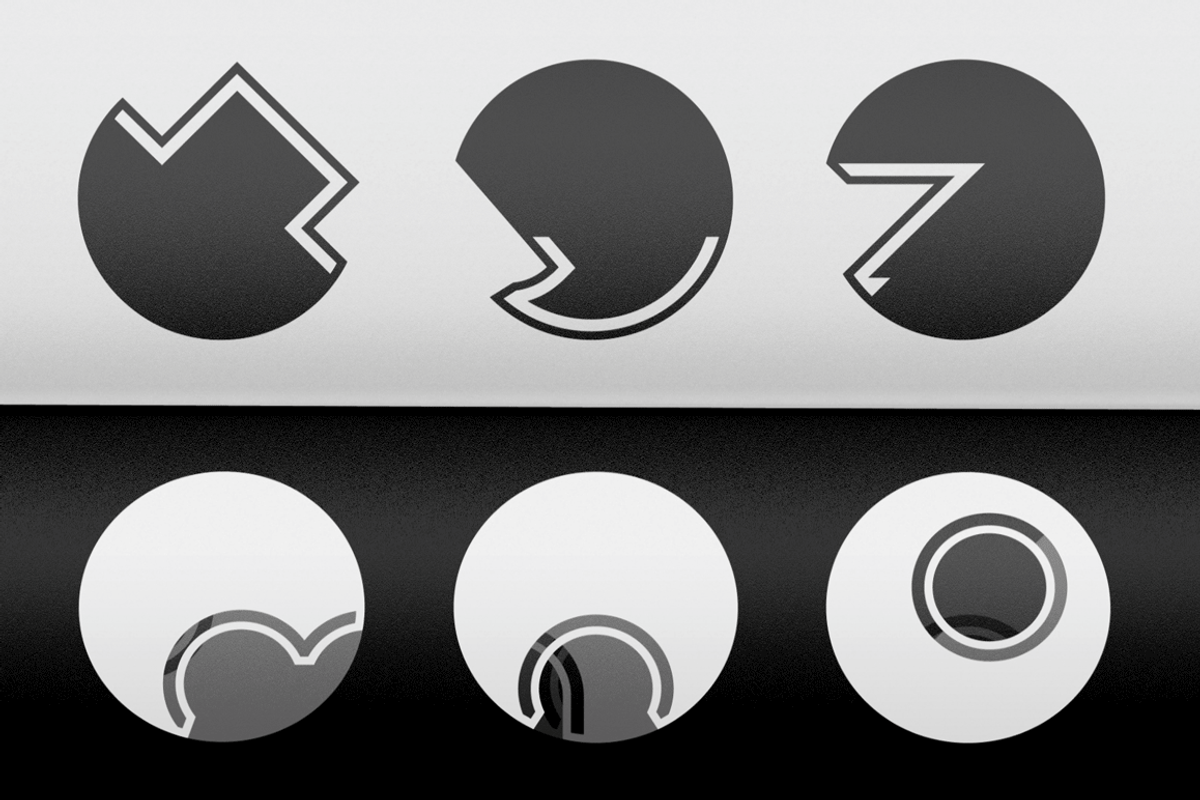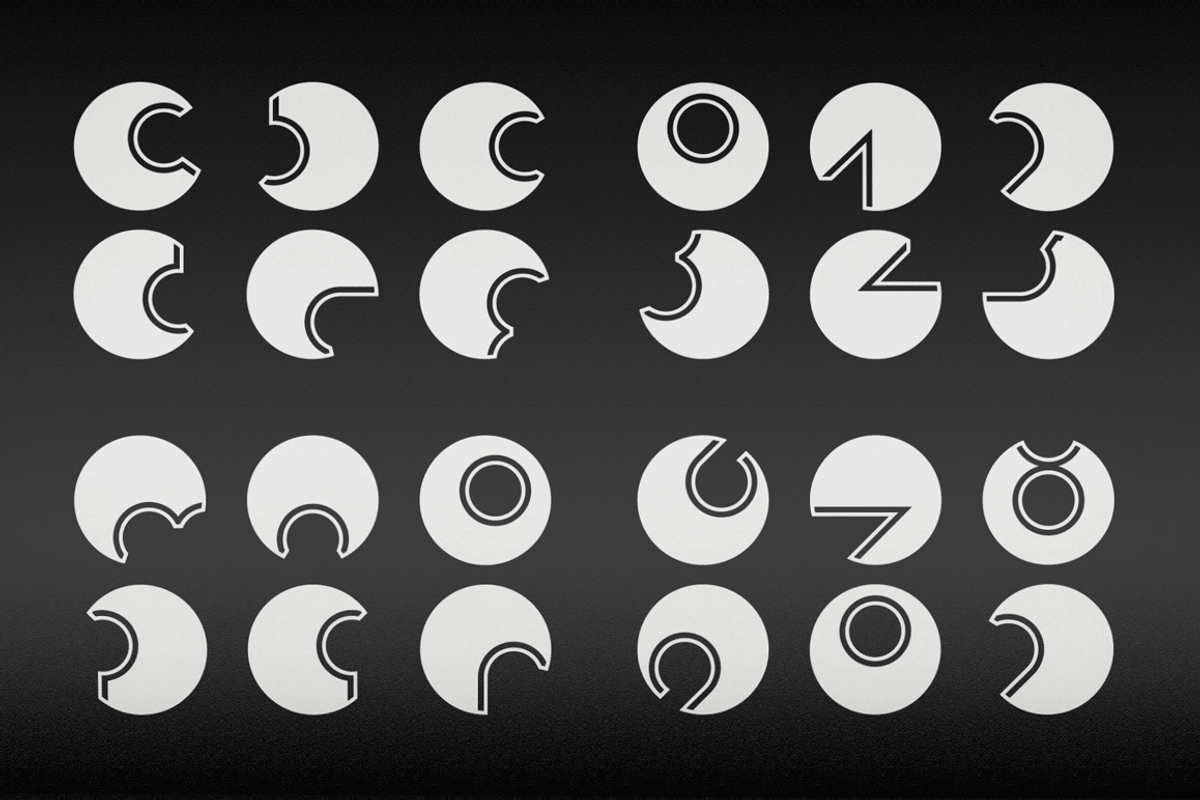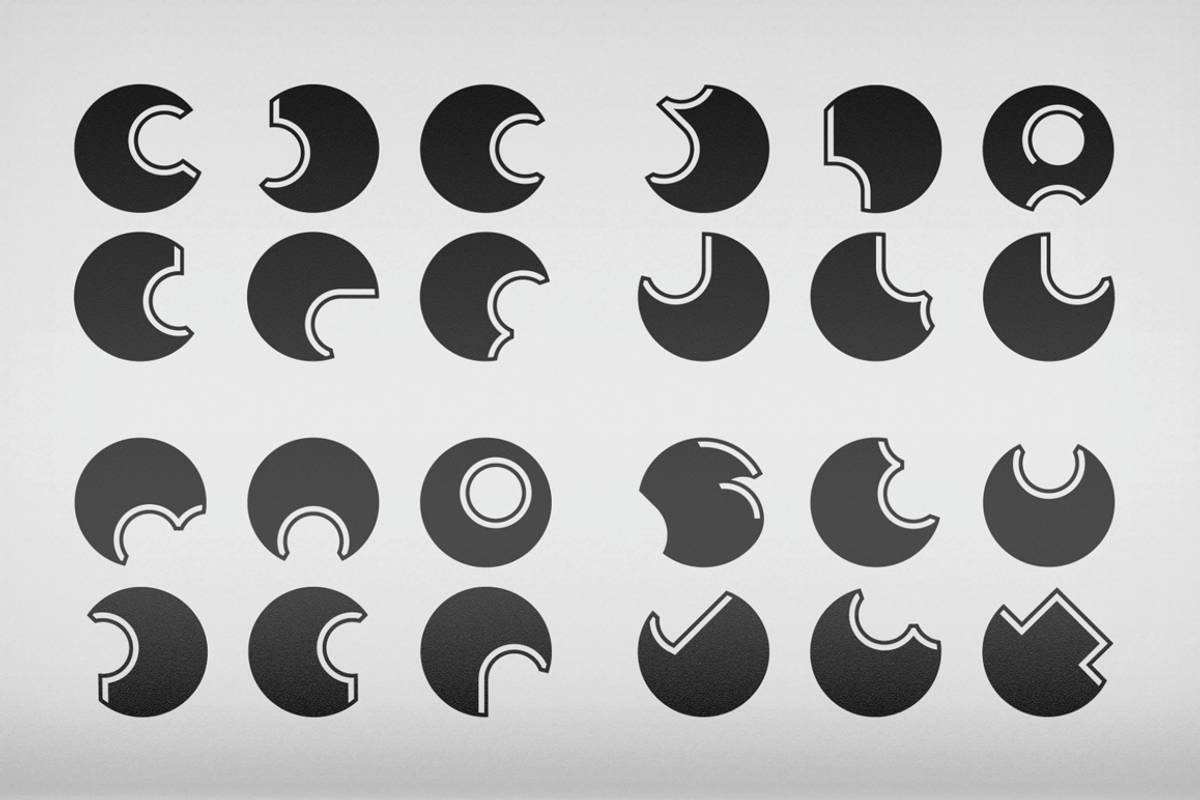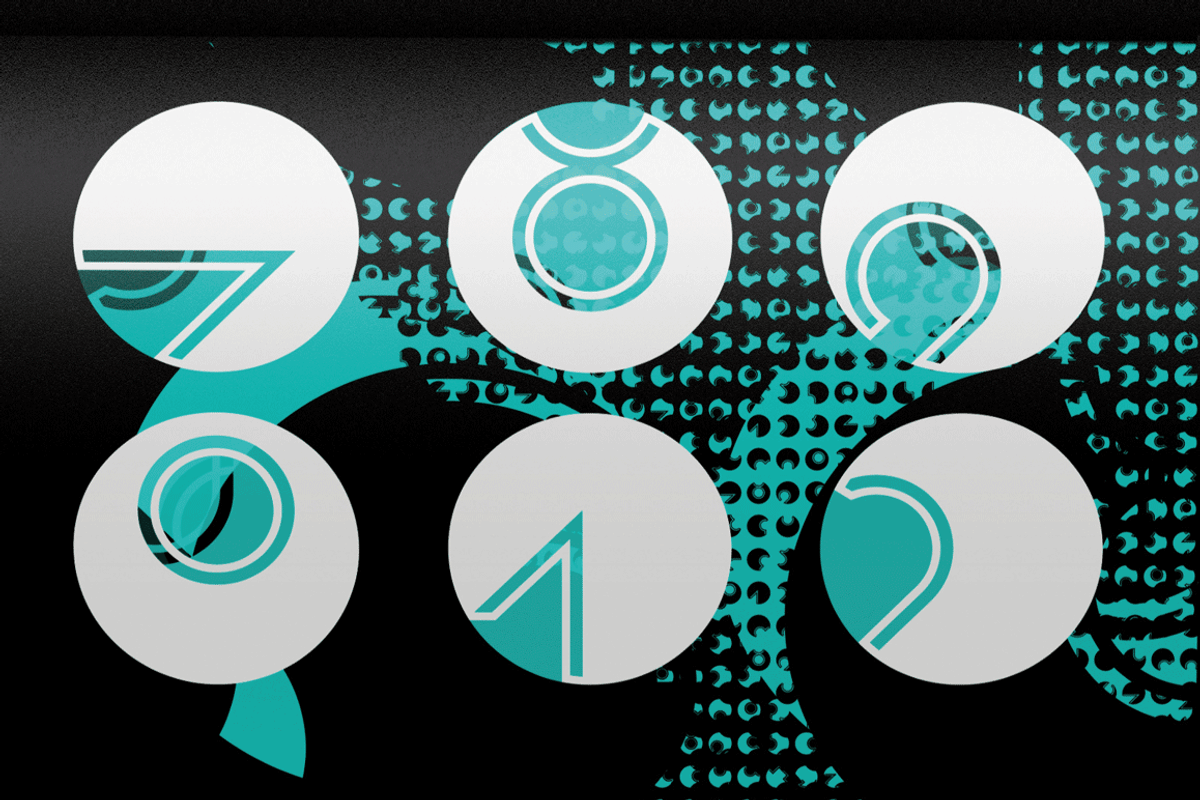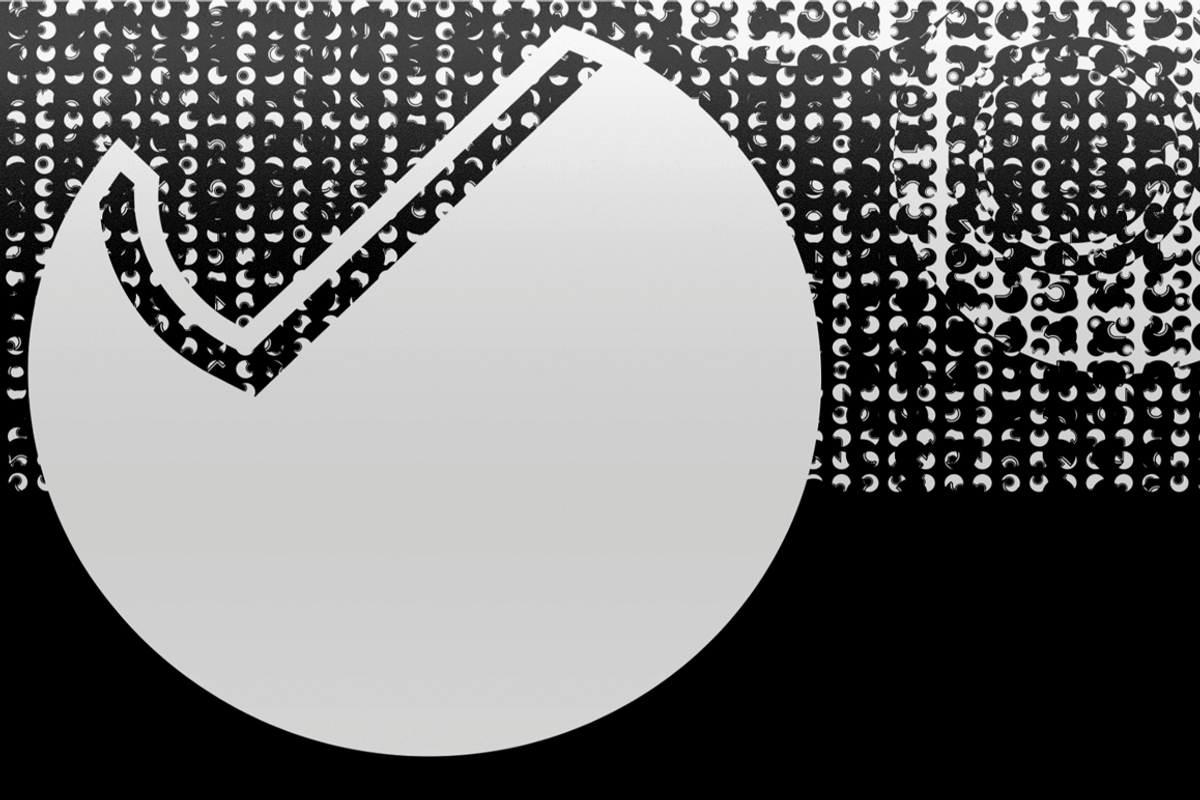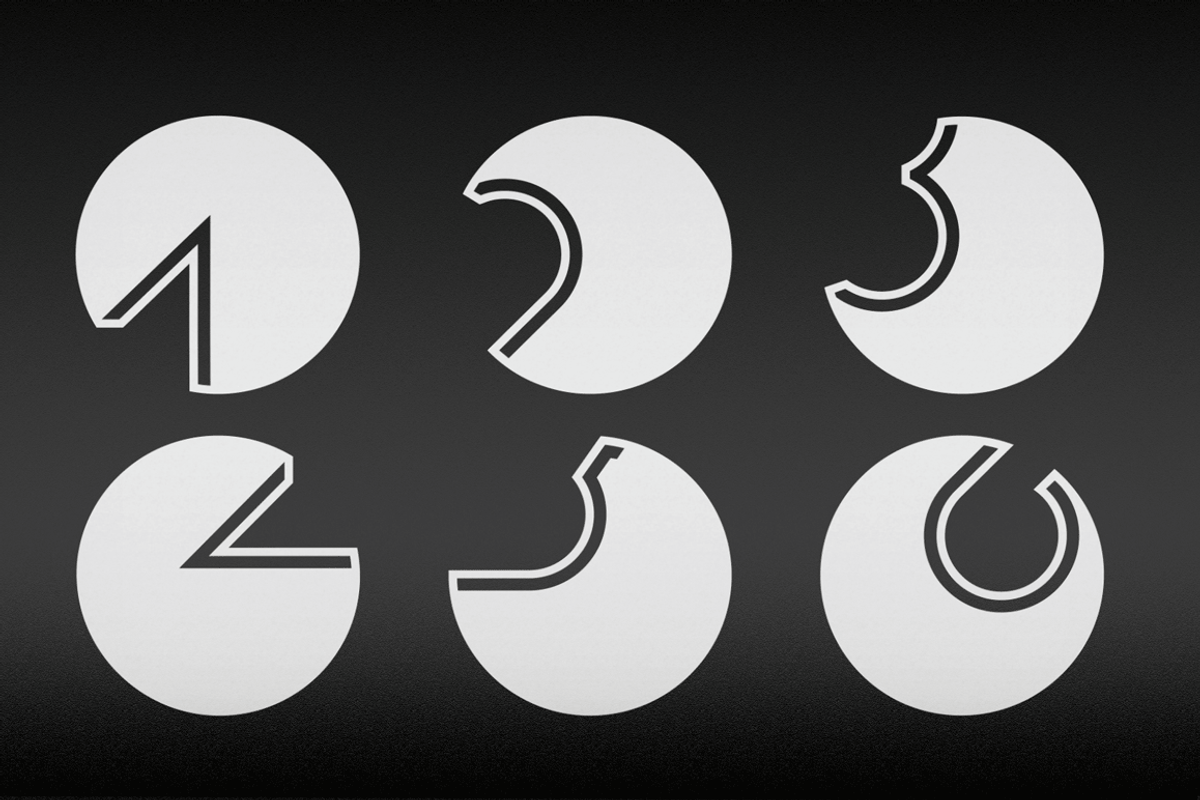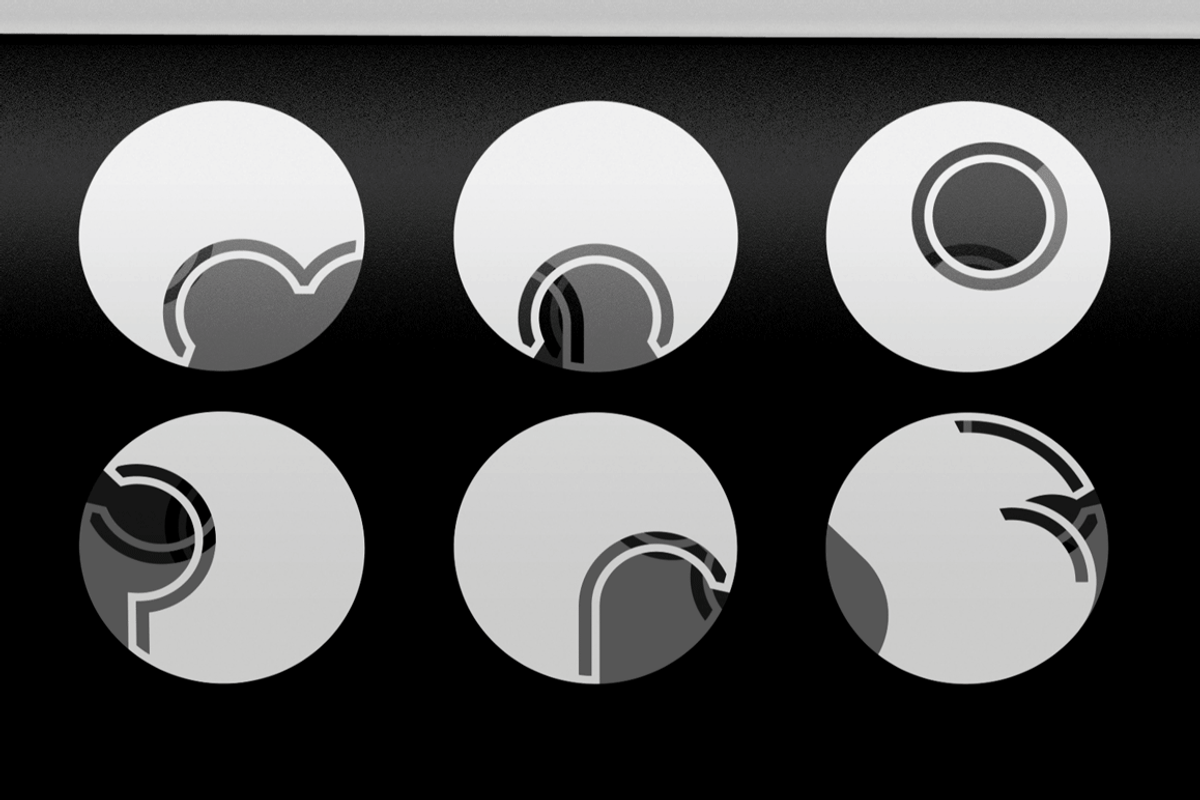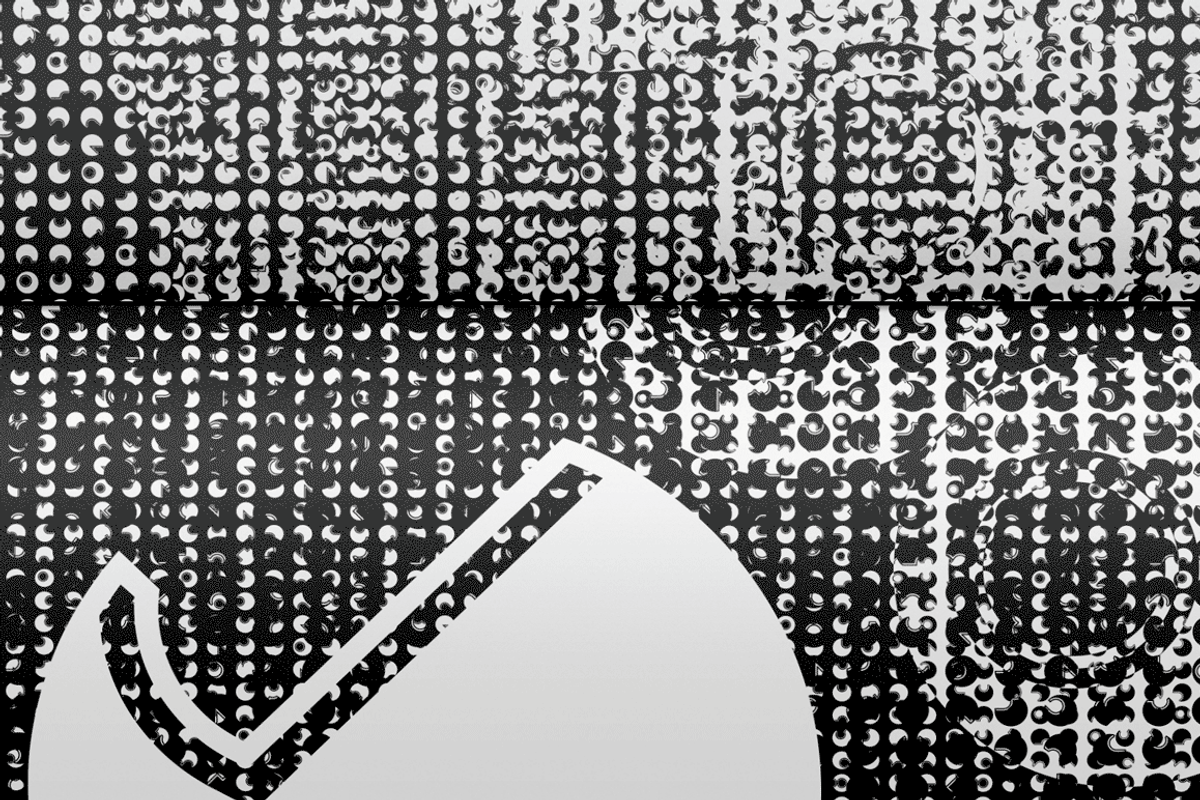
INVECTORS Font
INVECTORS Font by Fontsphere is a font selected for branding, posters, packaging, typography.
- Before you buy, please understand that the font is in all caps and contains the letters below: All the letters in this font: ABCDEFGHIJKLMNO
INVECTORS Font by Fontsphere fits naturally into Branding, posters, packaging, typography.